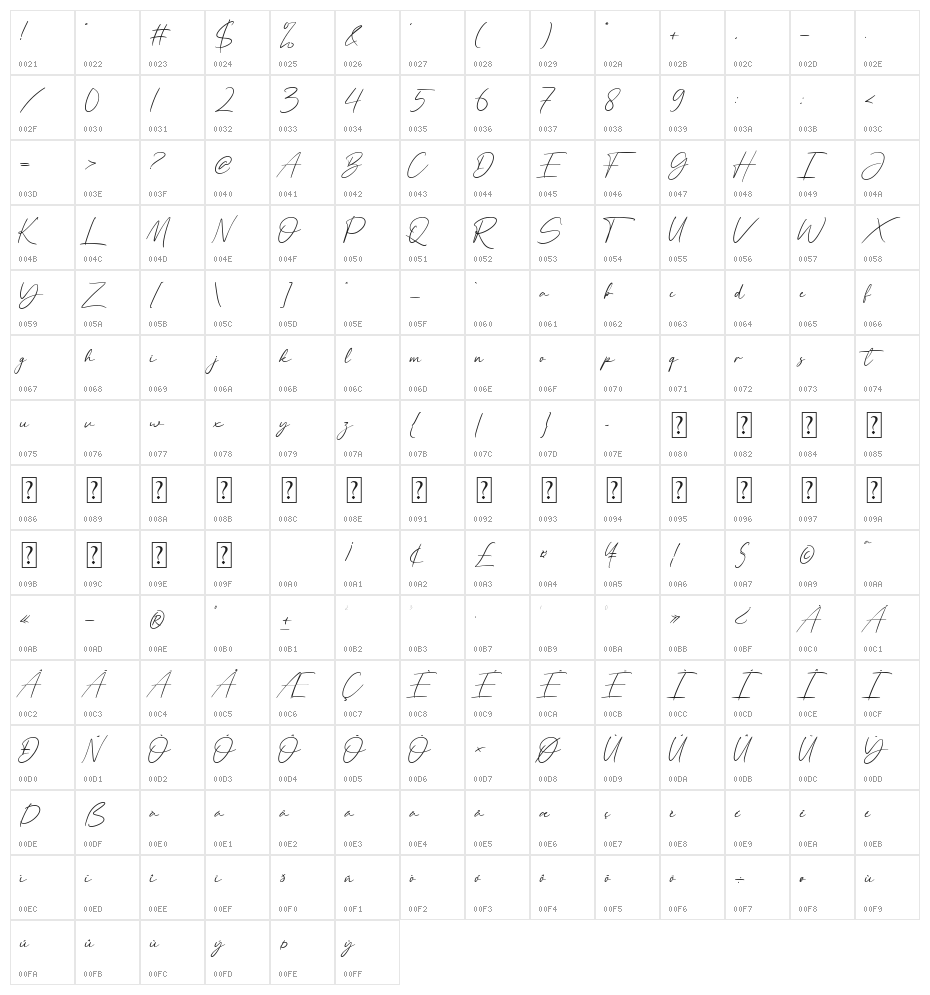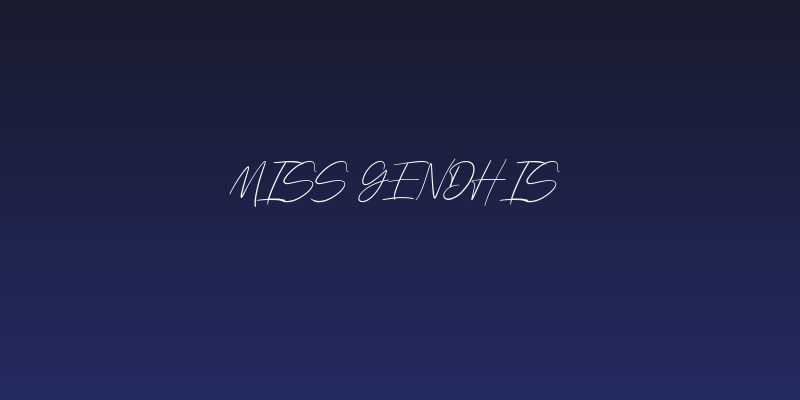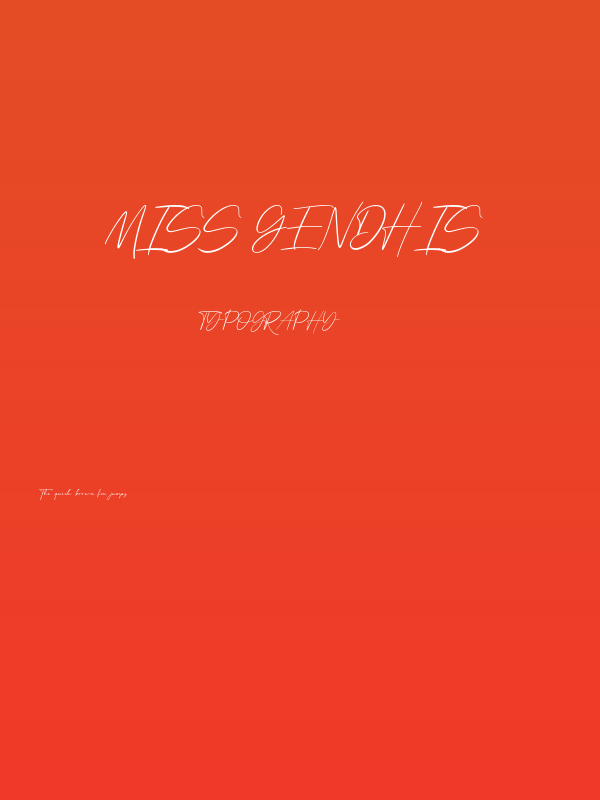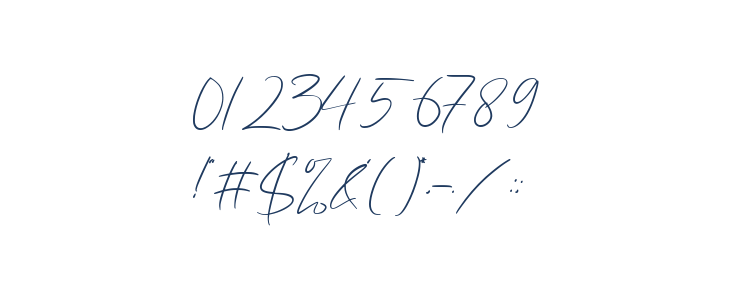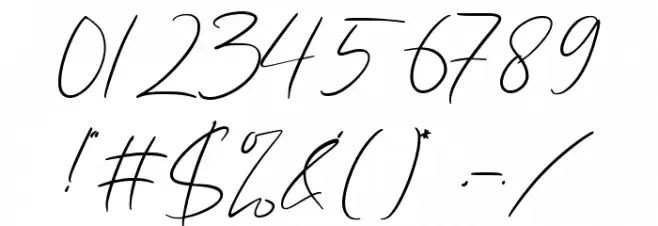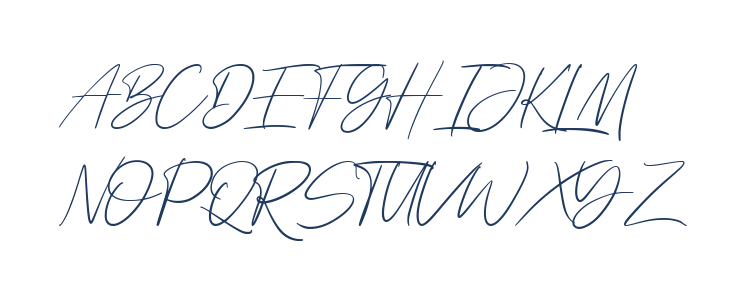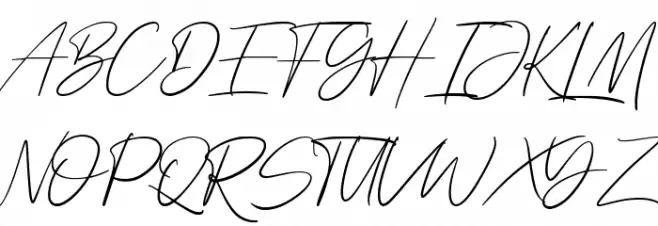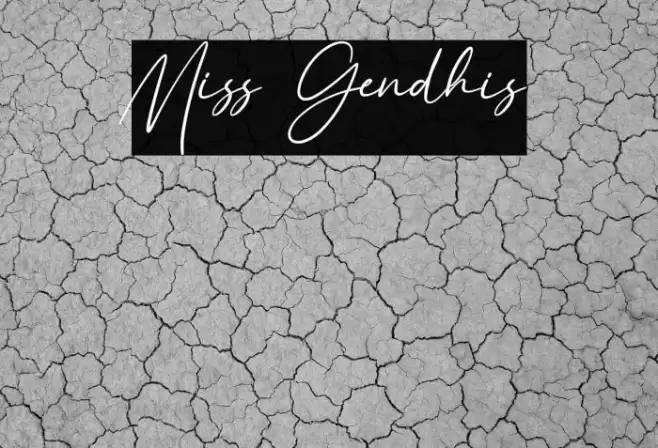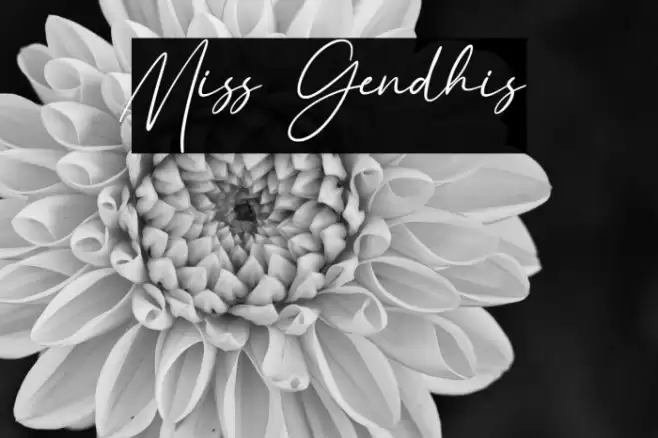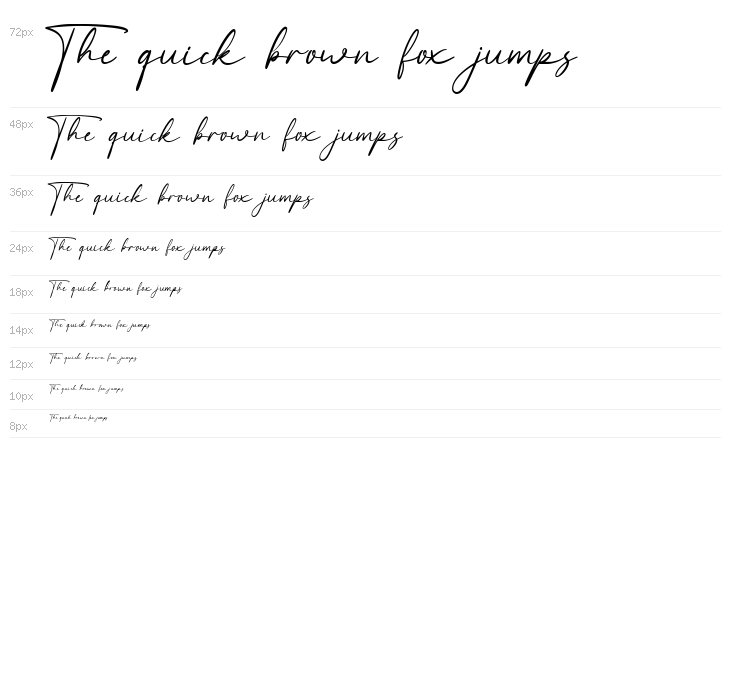
Miss Gendhis Font
Miss Gendhis Description
A delicate, cursive script font with a handwritten, elegant style characterized by thin, flowing lines and a slightly slanted appearance.
| Overall Style | Elegant, Casual, Personal |
| Use Case | Invitations, Personal branding, Logos, Greeting cards |